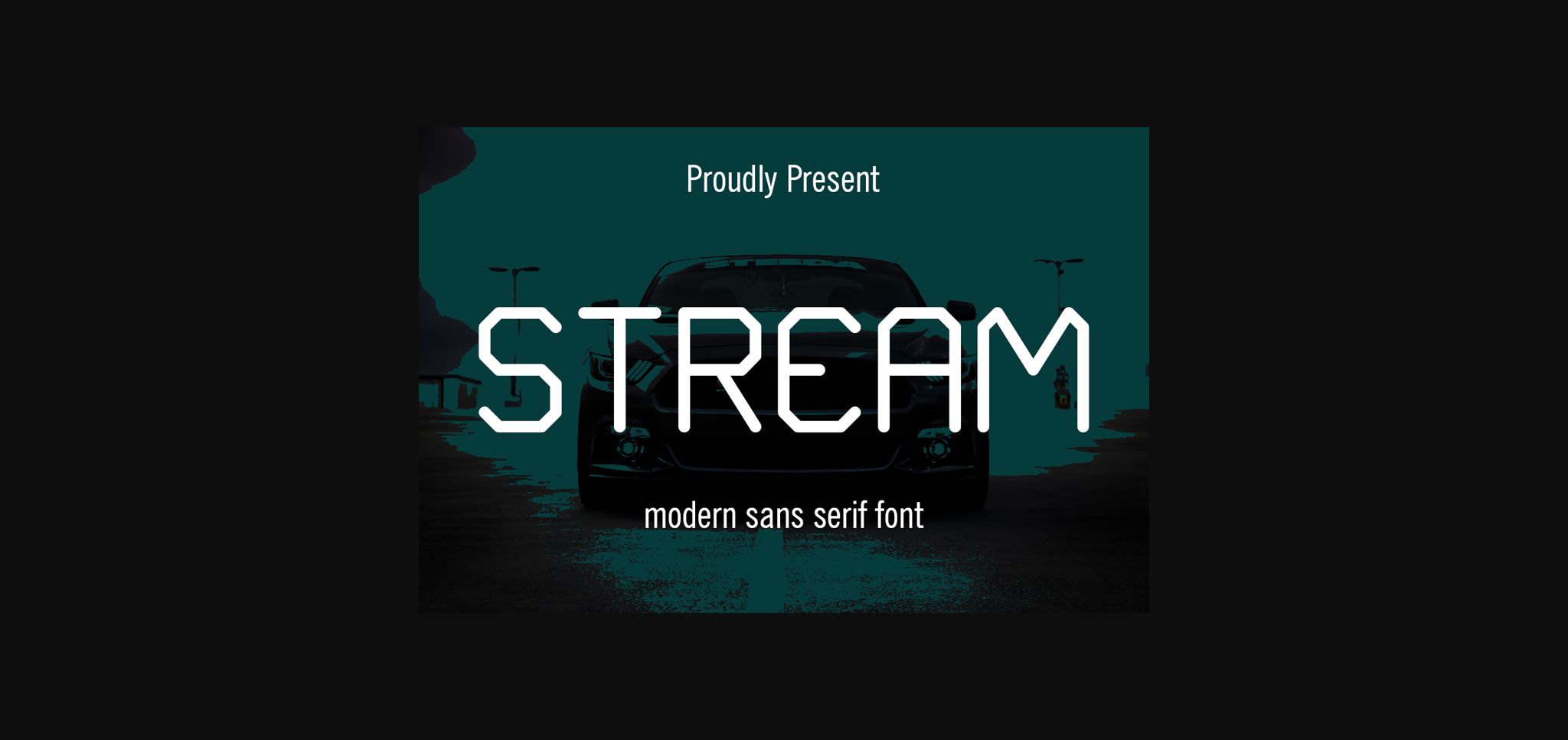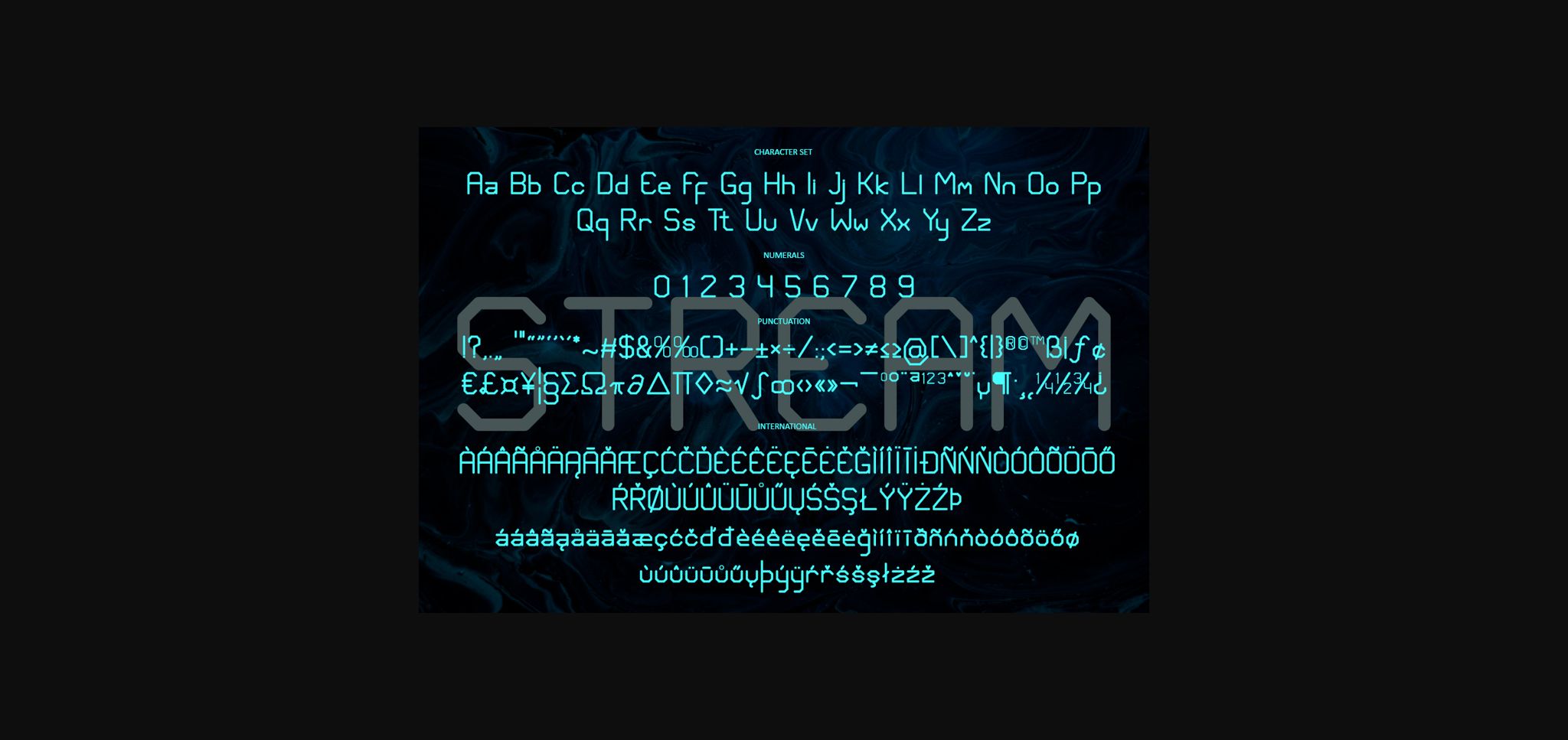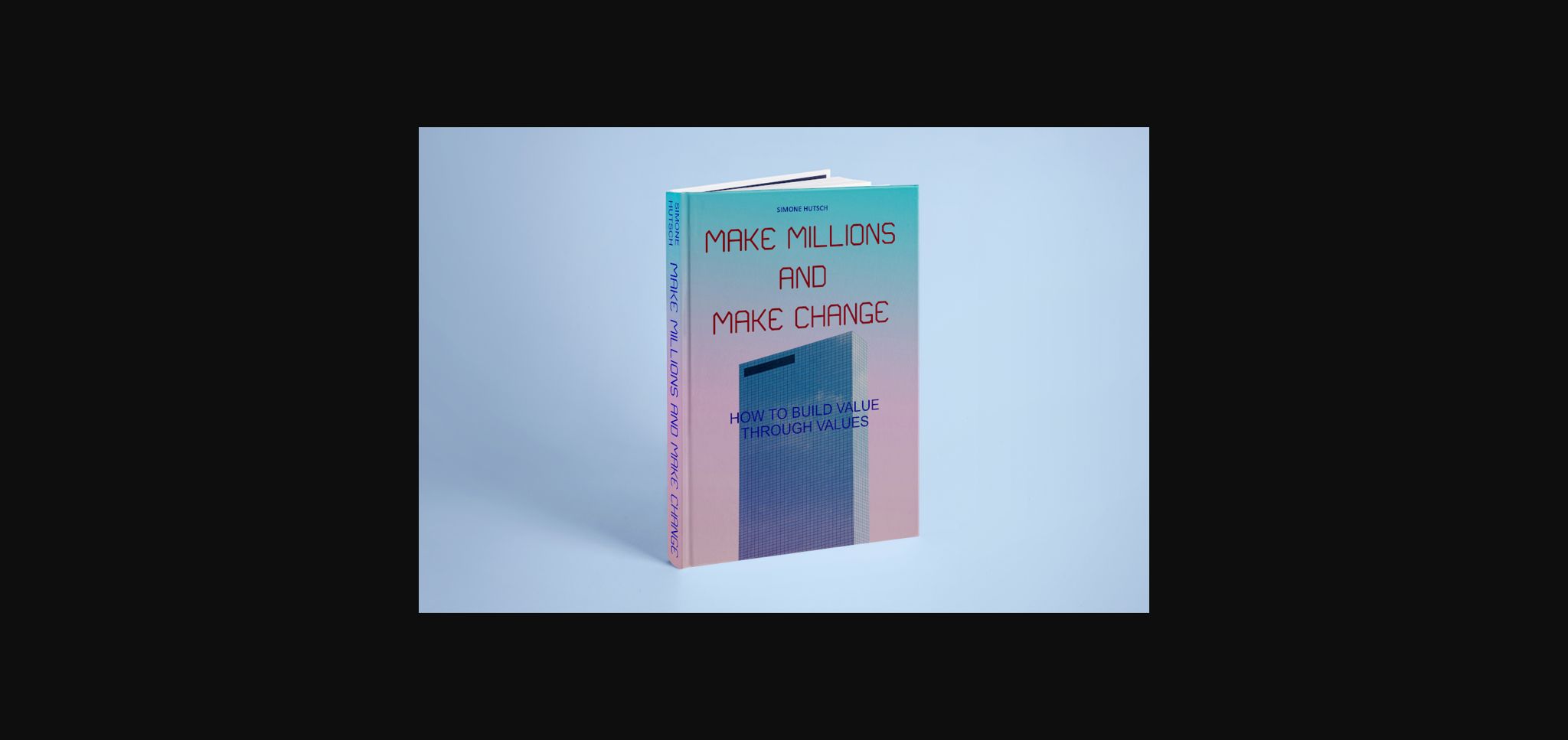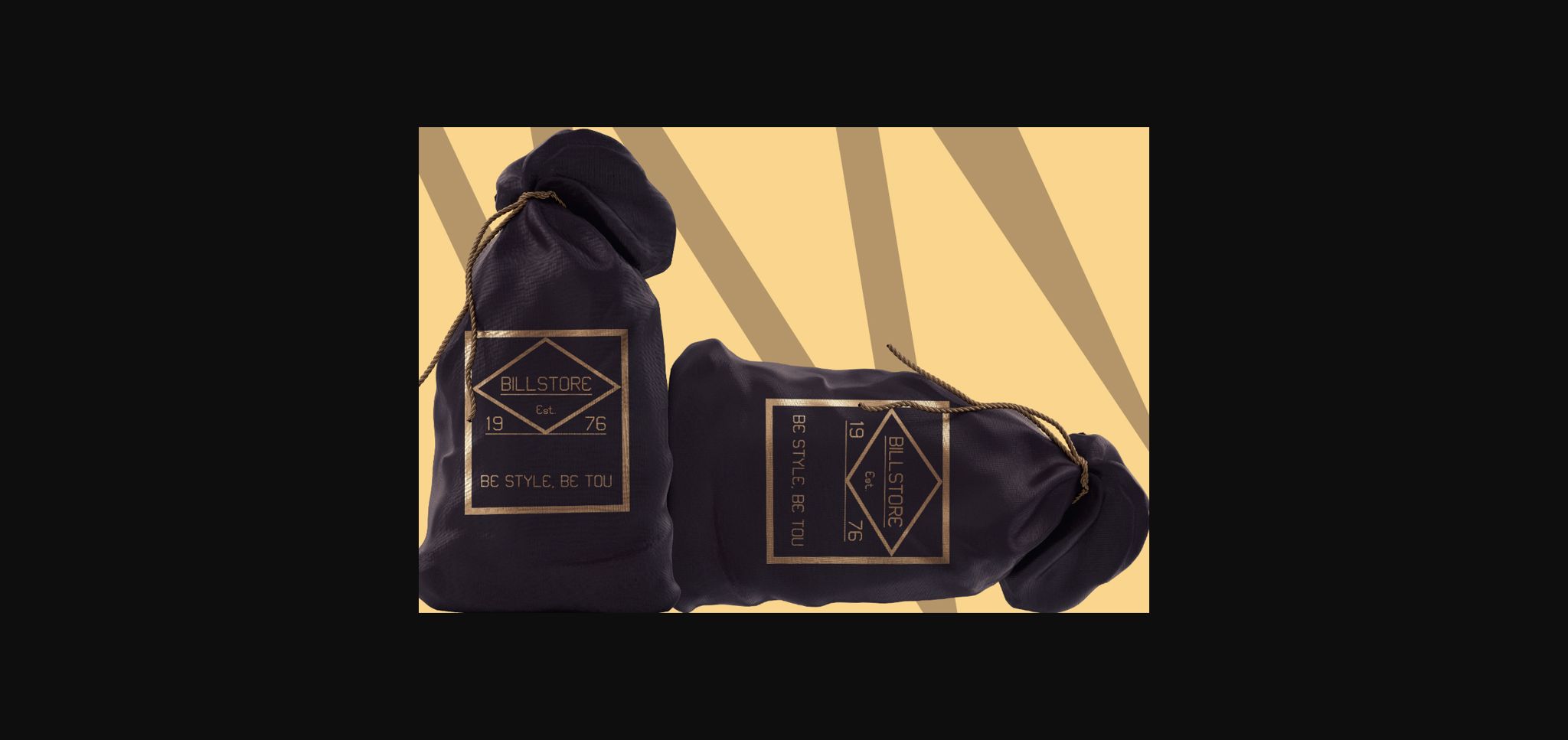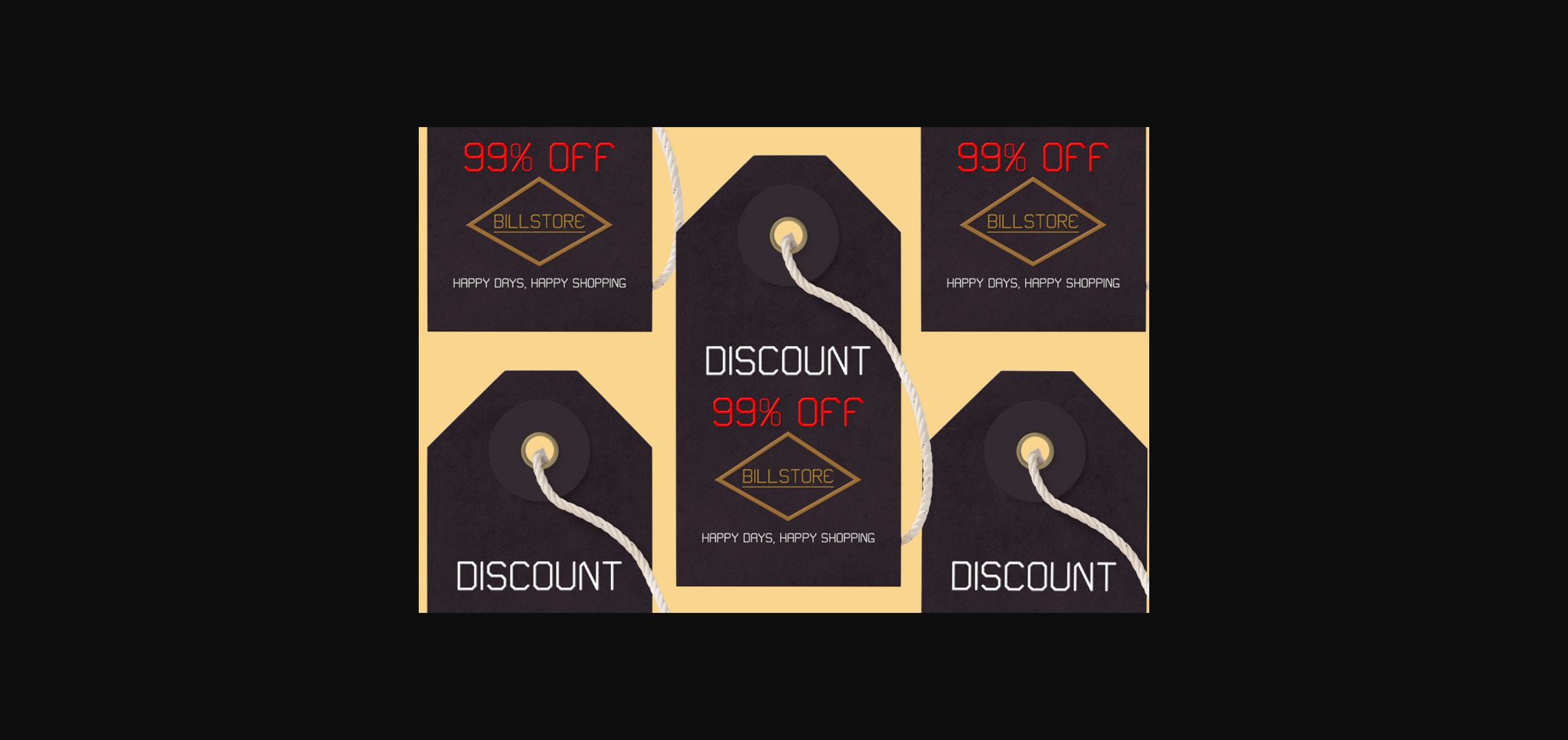
About Stream Font
stream is a modern sans serif font with an elegant design but a strong look. This font is suitable for magazine covers, company branding or logos, business cards, film covers, and so much more.